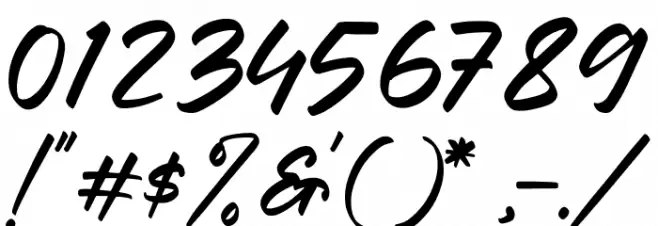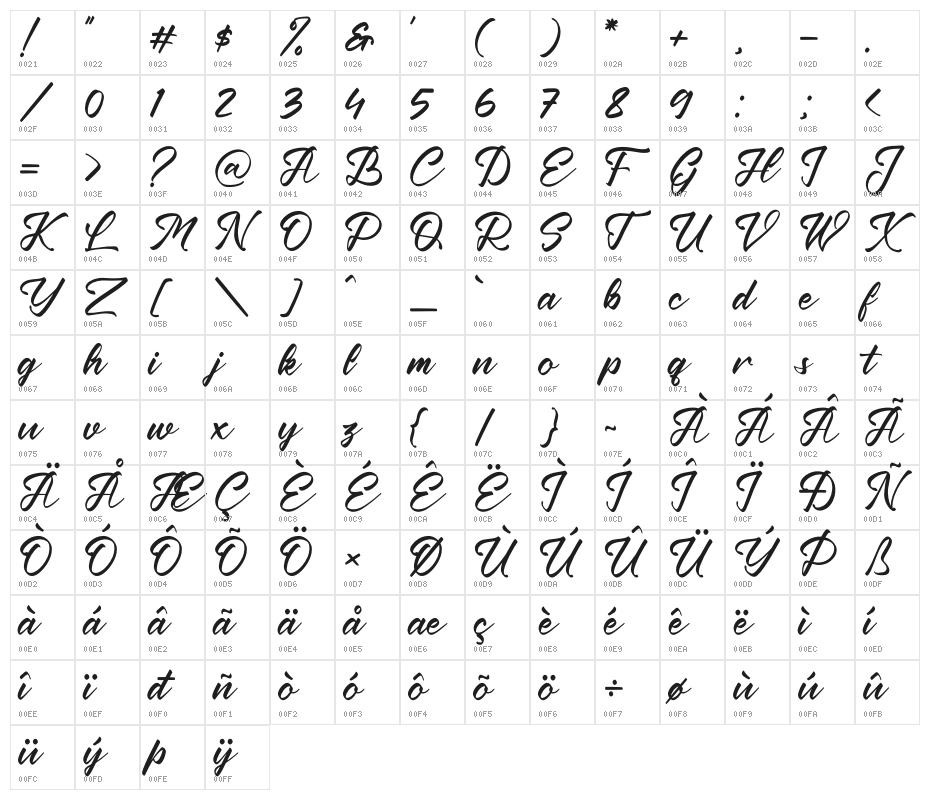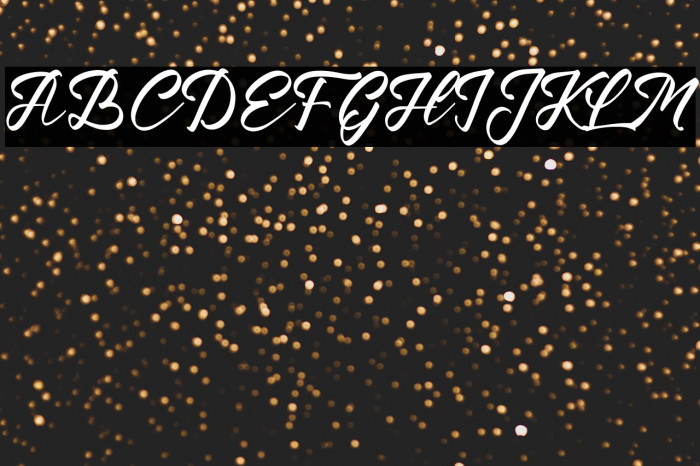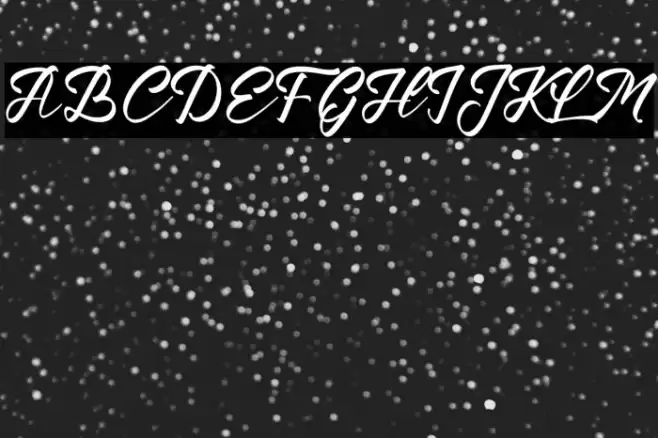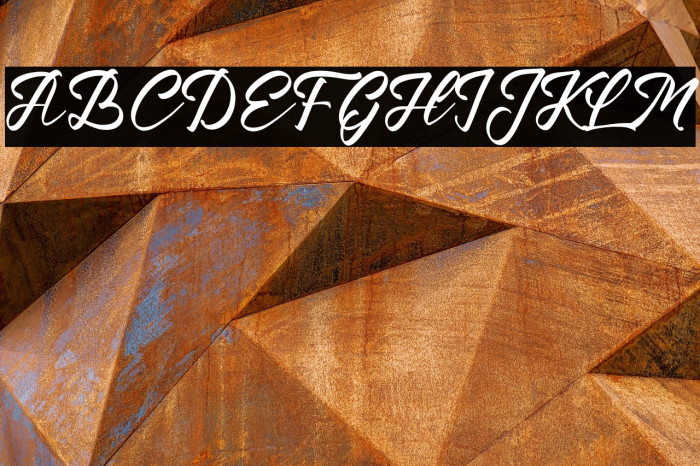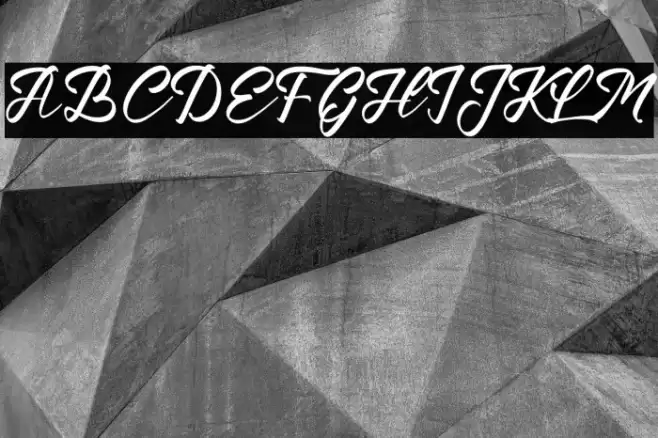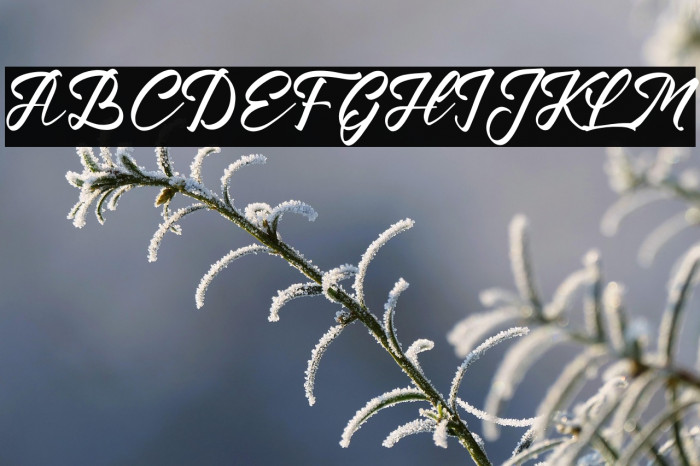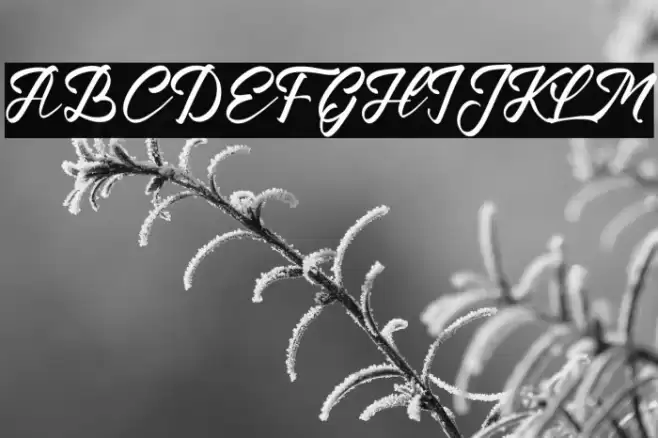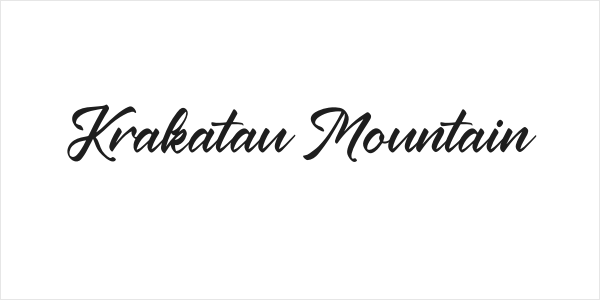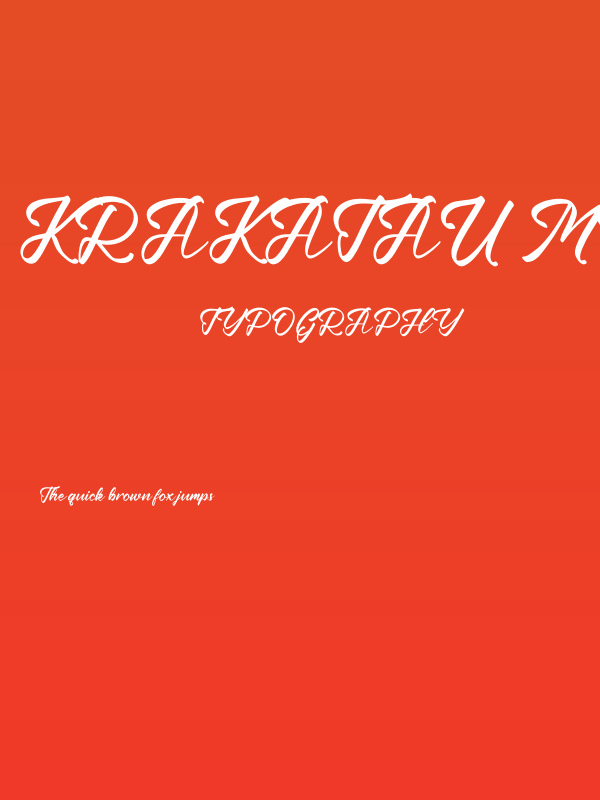
Krakatau Mountain Font
Krakatau Mountain Description
This font exudes a dynamic and energetic feel with its bold, cursive style. The letters are interconnected, creating a fluid and continuous flow that mimics natural handwriting. The uppercase letters are elegantly crafted with sweeping curves and loops, while the lowercase letters maintain a consistent rhythm and balance. The numerals and special characters are designed to complement the overall script style, ensuring a cohesive look across all text elements. This font's boldness and expressive nature make it ideal for projects that require a personal touch or a sense of movement.